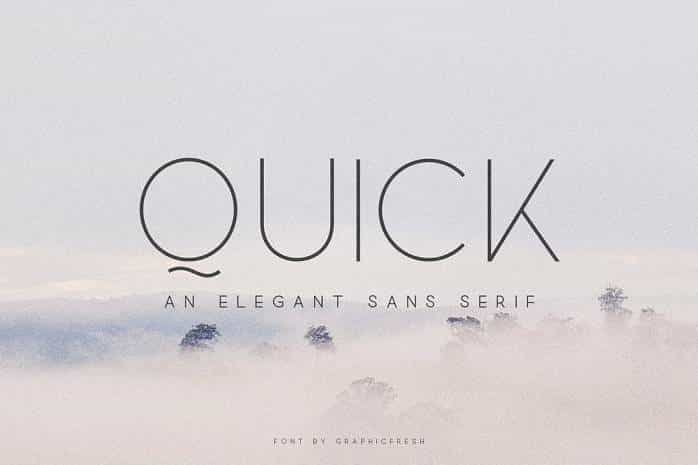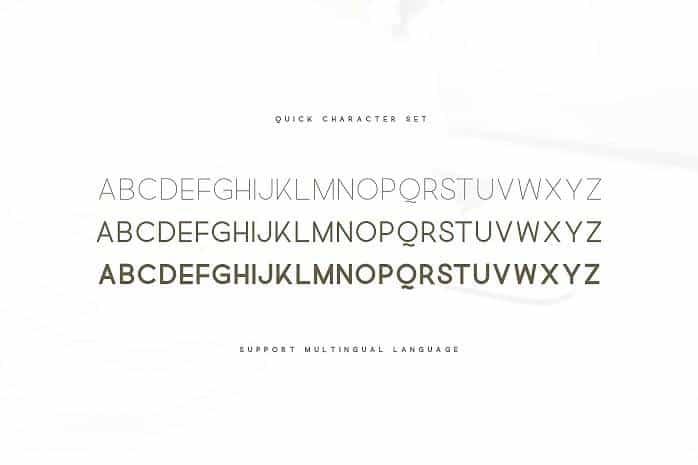
Discover Quick Font, part of the Sans Serif Retro collection—a versatile and unique font perfect for adding a personal touch to your projects. Download it for free and enjoy crafting designs with style, from invitations to social media posts. This font is available exclusively for personal use, giving you the freedom to create without limits. Unlock your creativity with Quick Font today!
Quick – An elegant sans serif and minimalist figure!suitable for logos, business cards, magazine layouts, invitations, headers and even large-scale artworks.